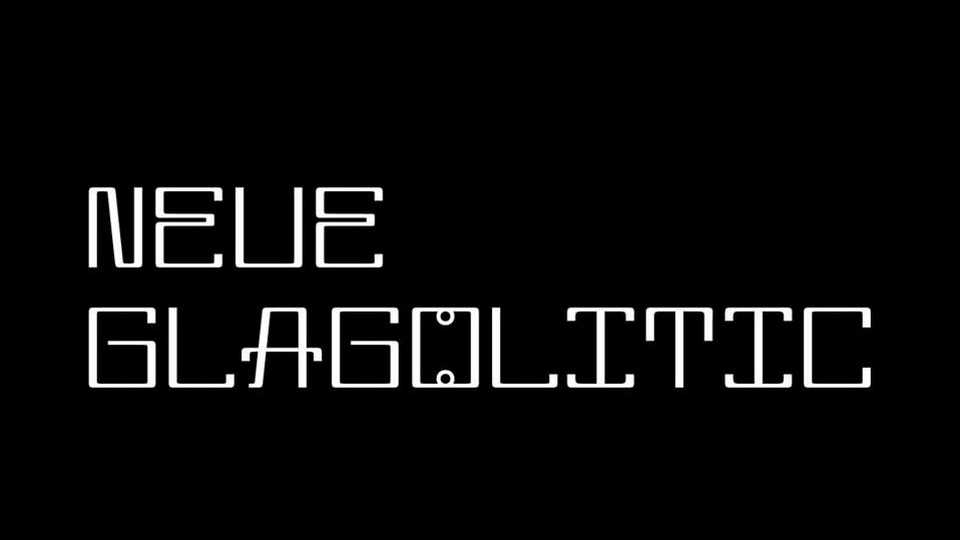
Download Neue Glagolitic is a display typeface inspired by Glagolitic. The goal of the project was to create a modern font that would be readable and refer to the plasticity of the Glagolitic alphabet.
Designer: Lada Sobchenko